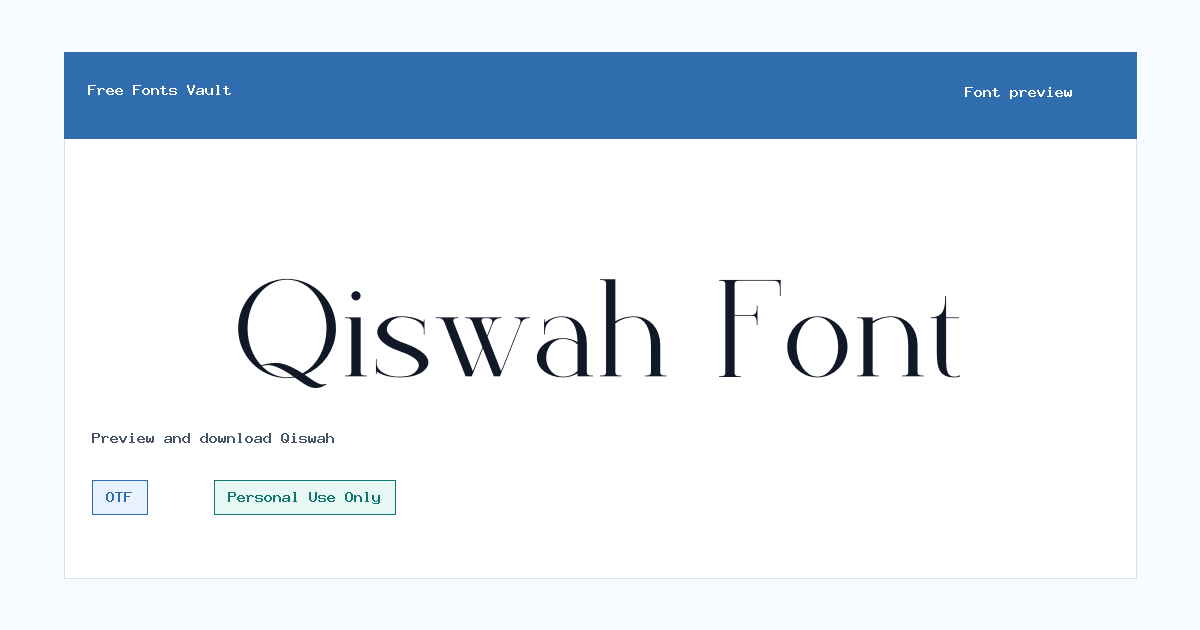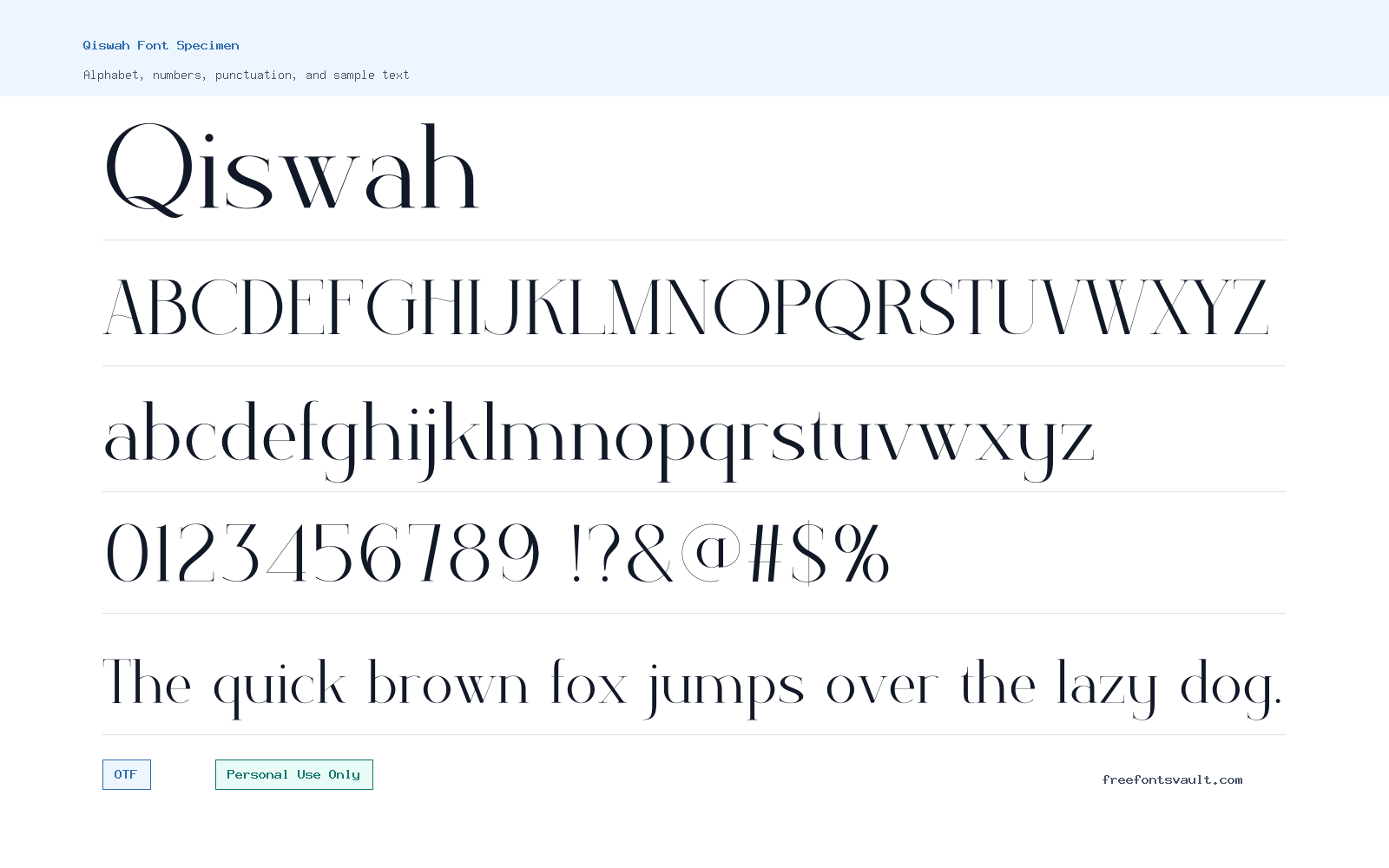
Qiswah
- Designer Idebareng Team
- Foundry idebareng
Qiswah font.
Qiswah is a serif font with a clean regular style, suited for visitors who want a refined text look for personal design projects, previews, and short display settings.
About Qiswah Font
Qiswah has a serif structure, so it brings more formality and shape than a plain sans serif. Its regular 400 weight makes it a practical starting point for titles, names, short quotes, invitations, social graphics, and decorative headings where you want the letters to feel composed without becoming too heavy. Because the page offers a regular style rather than a full multi-weight family, it is best treated as a focused display or light text font instead of a complete branding system.
- Normal style with 400 font weight for clean short-text use
- Personal invitations, cards, and quote graphics
- Short headings, name designs, labels, and social posts
The designer is listed as Idebareng Team, with idebareng named as the foundry.
What style and weight are included?
The font entry includes a regular variant with normal style and 400 weight.
Who designed Qiswah?
Qiswah is credited to Idebareng Team, with idebareng listed as the foundry.
What is Qiswah best used for?
It is best tested for short personal-use designs such as headings, invitations, quote graphics, names, labels, and social media images.
Can I use Qiswah for long paragraphs?
You can test it for longer text, but it is safer to use it for short display text and pair it with a simpler body font for readability.